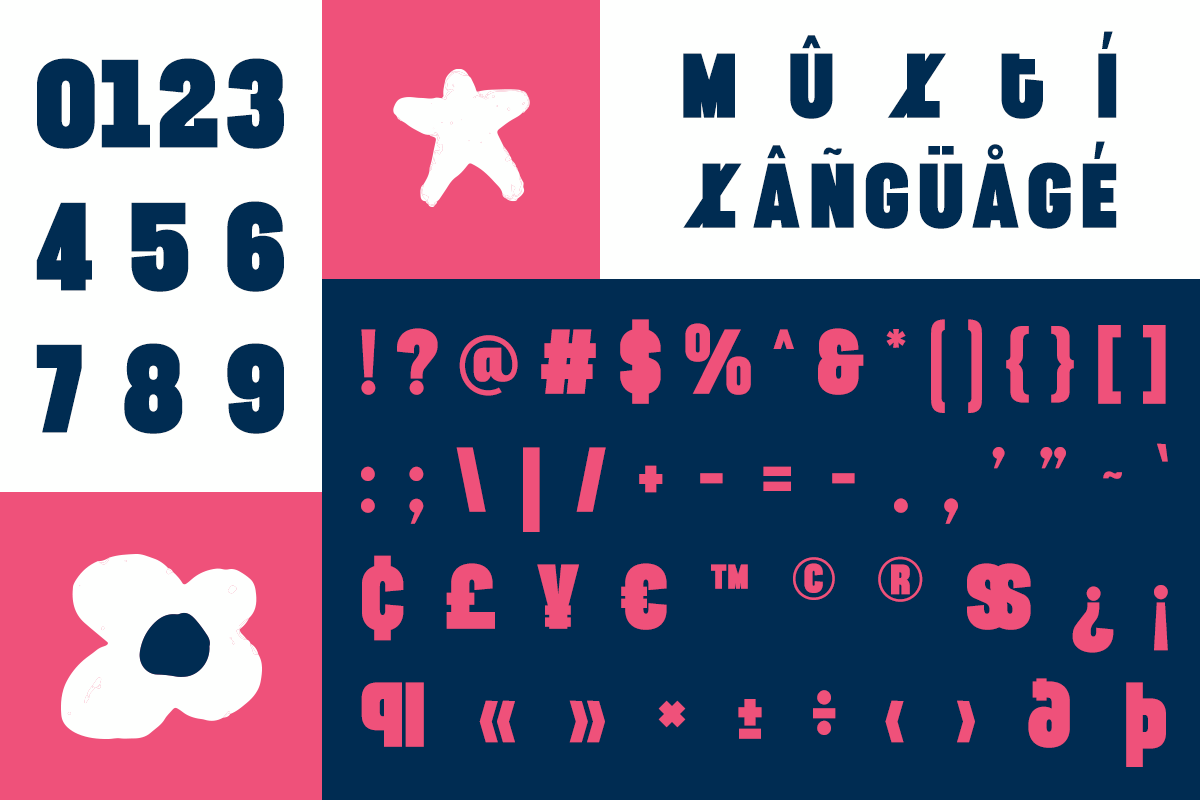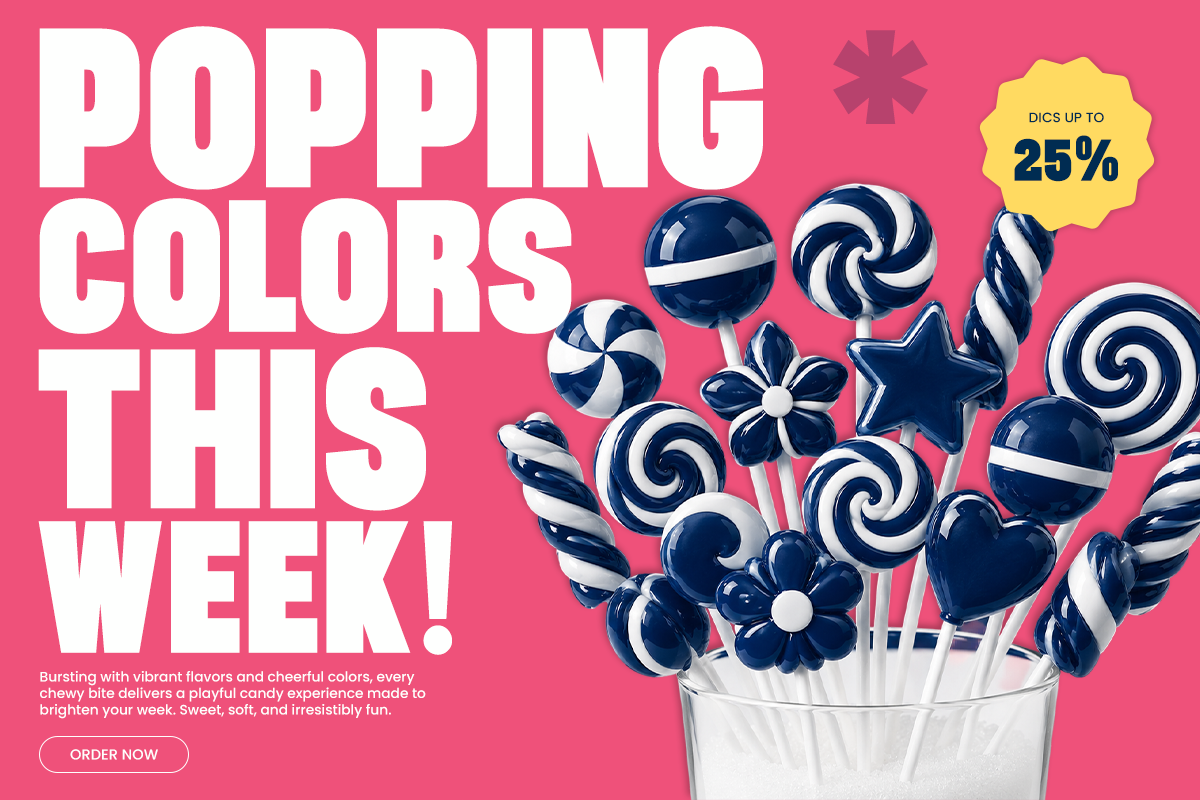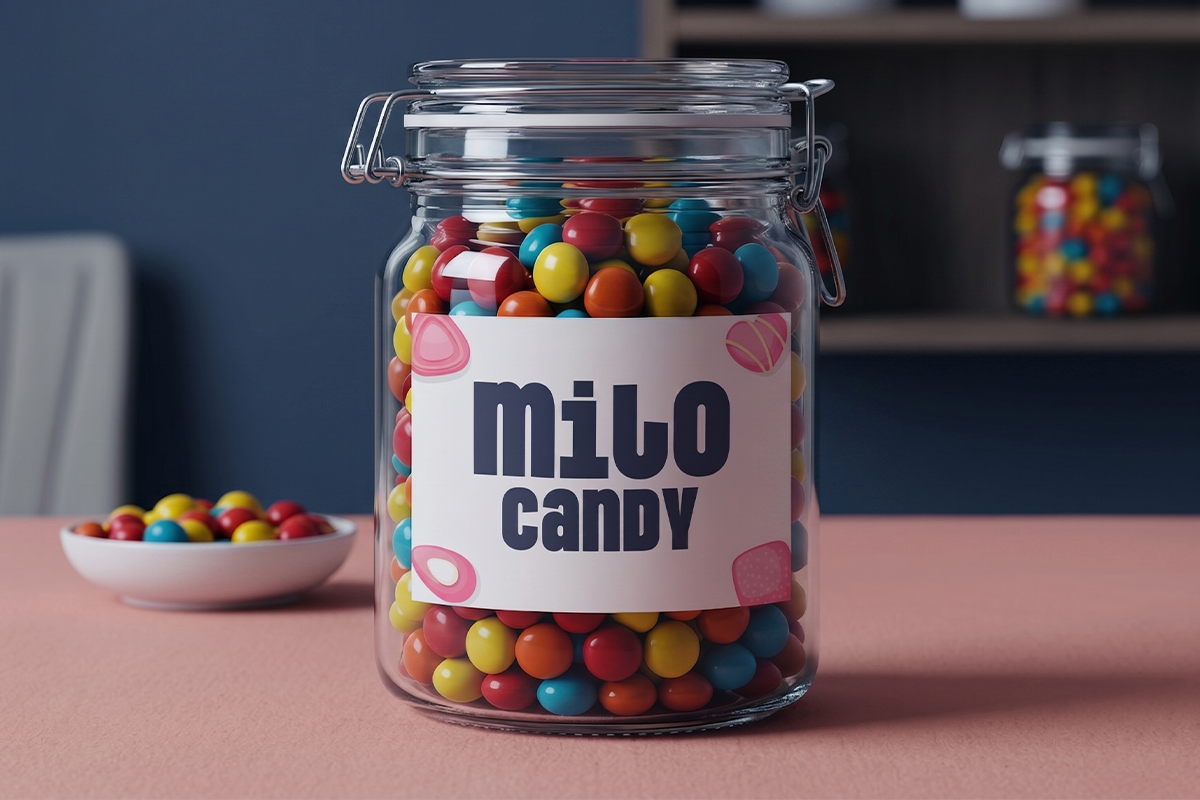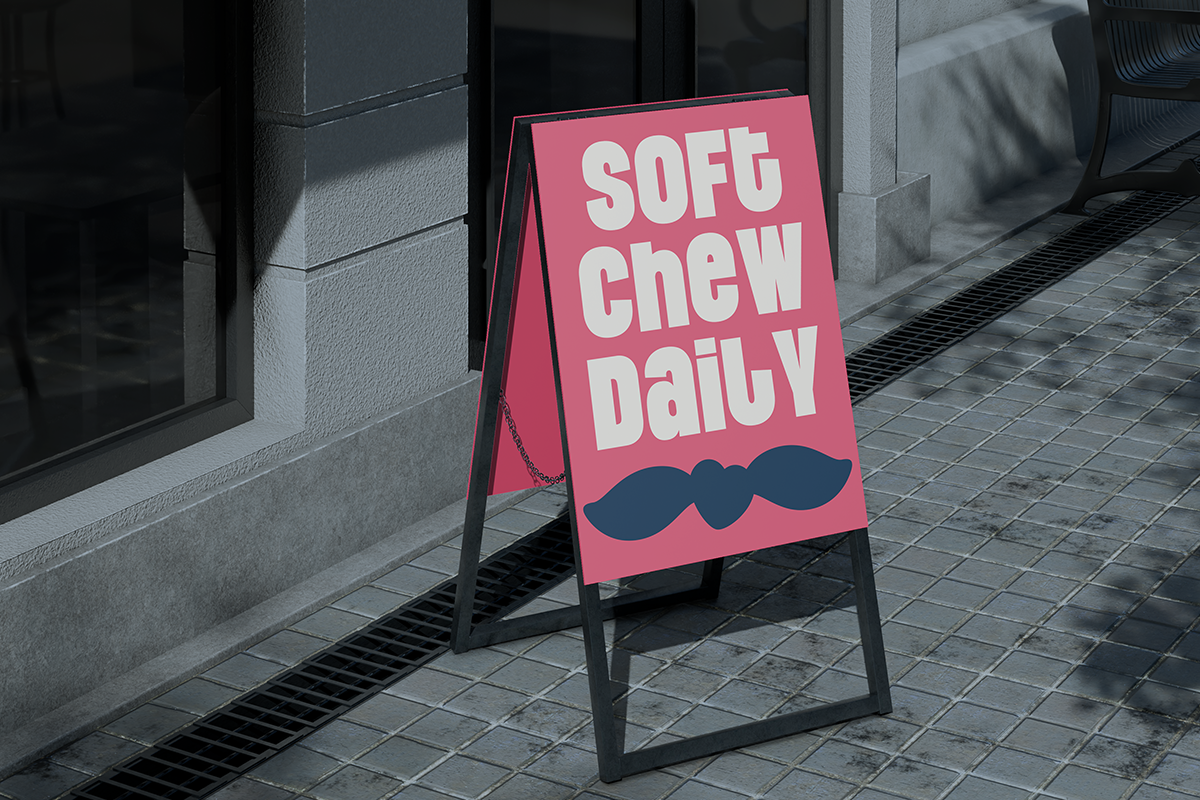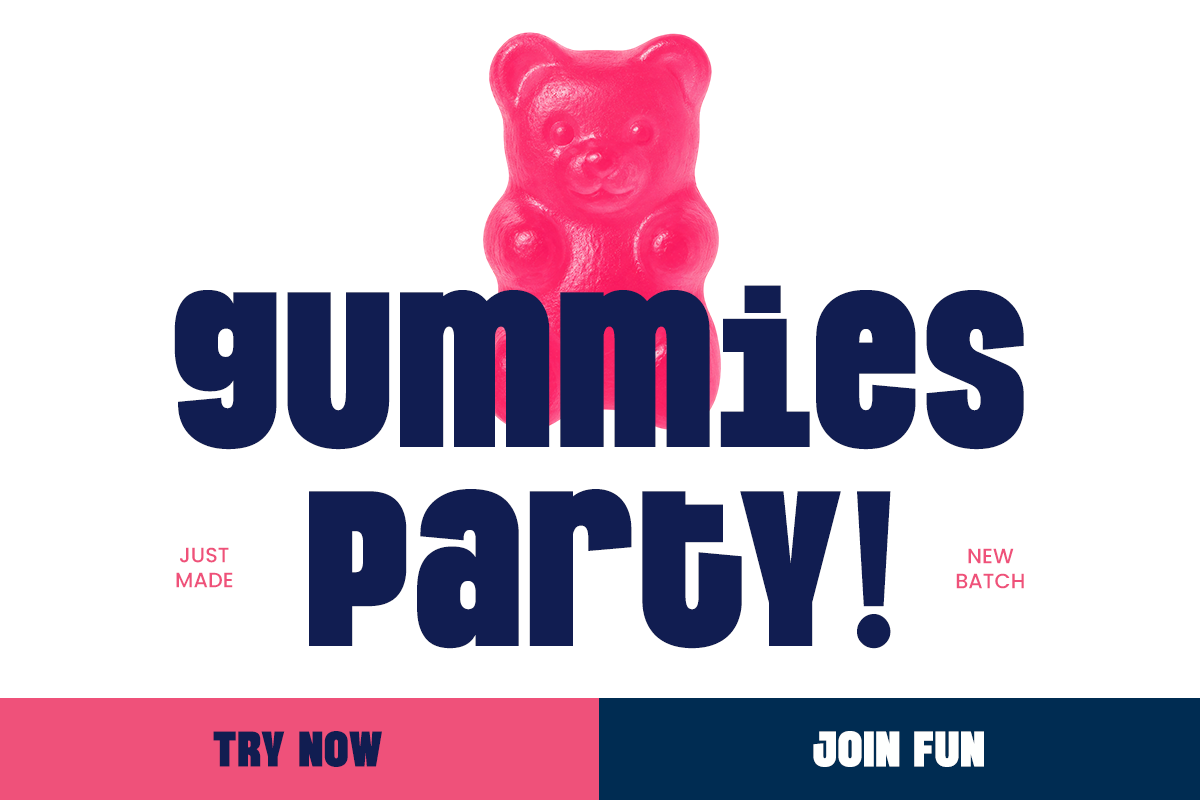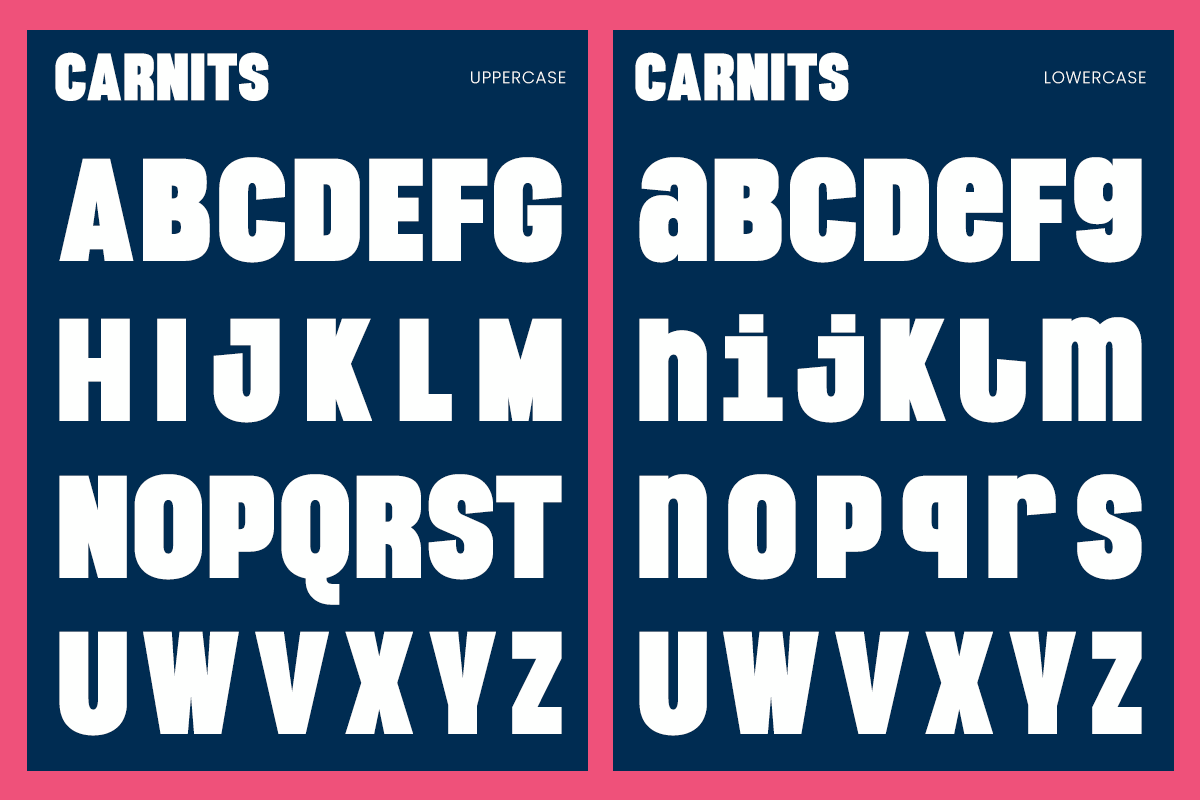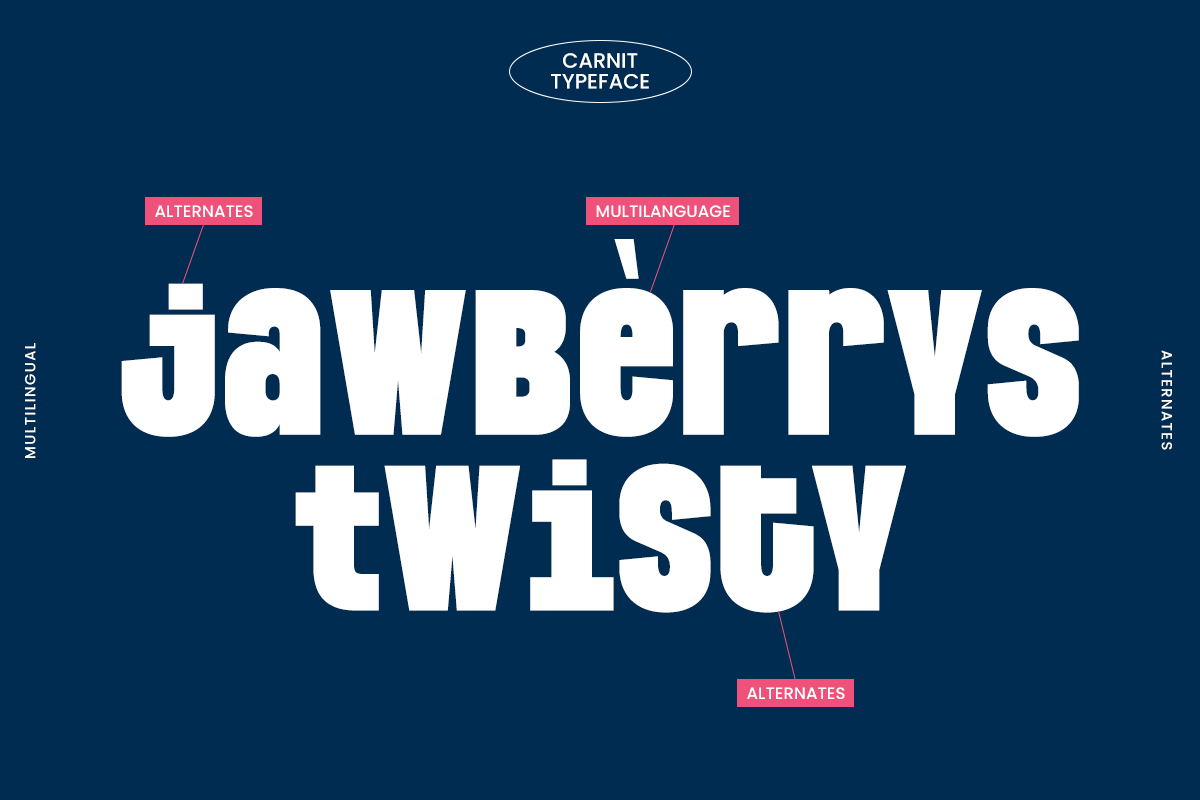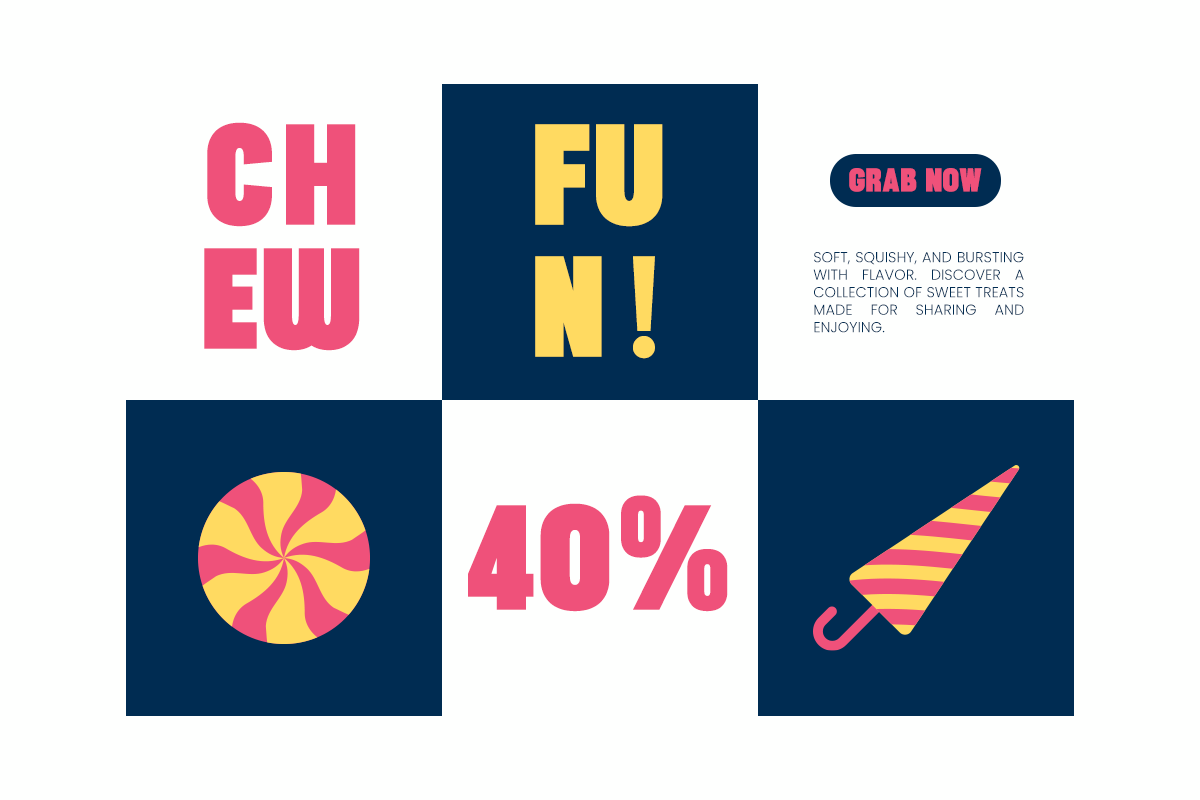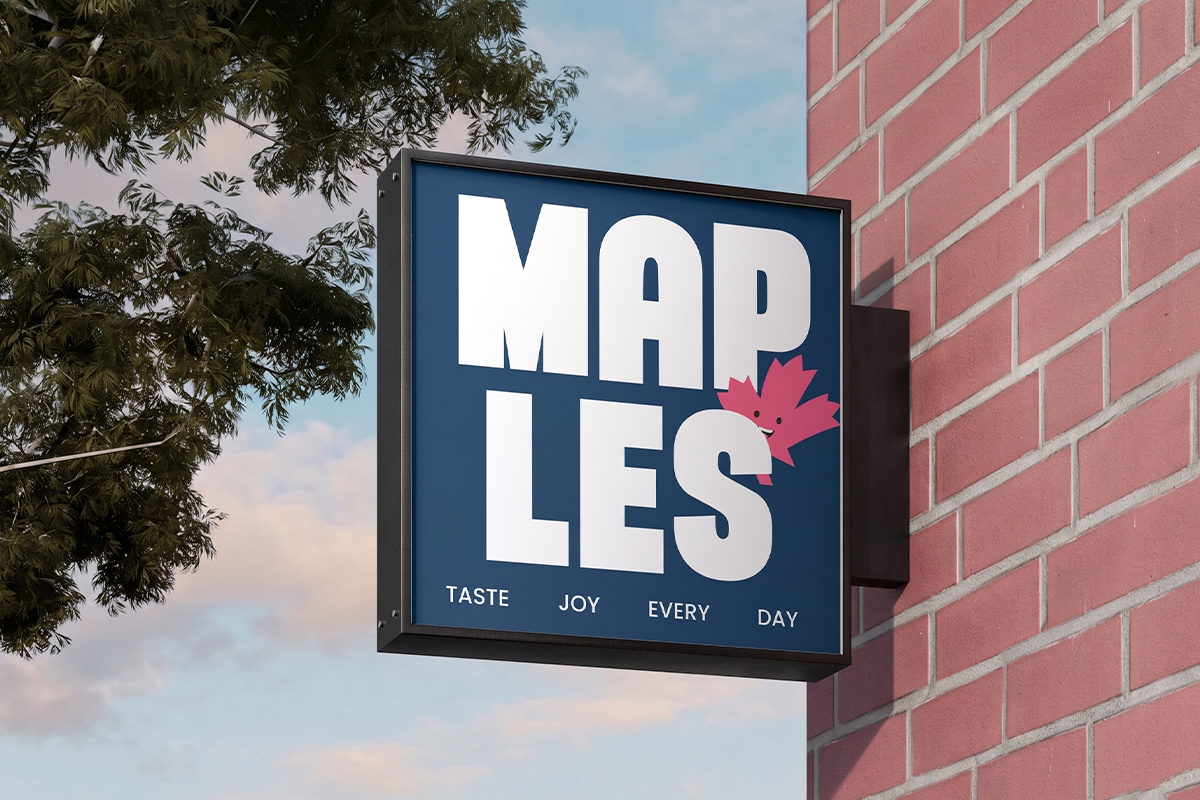
Carnit – Bold Playful Sans Serif
Carnit is a bold sans serif typeface designed to make every message impossible to ignore. With its chunky letterforms, playful personality, and strong geometric structure, Carnit brings instant energy to branding, packaging, posters, and modern advertising. The bold silhouette creates maximum visual impact while maintaining excellent readability across both print and digital media.
Perfect for candy brands, food packaging, children's products, social media graphics, logos, headlines, merchandise, and promotional campaigns, Carnit delivers a fun and confident aesthetic that captures attention in seconds. Featuring multilingual support and stylish alternates, it gives designers the flexibility to create unique and memorable typography with ease.
Whether you're building a cheerful identity, designing vibrant marketing materials, or creating eye-catching packaging, Carnit adds a fresh, friendly, and modern touch that stands out in every composition.
Regular and Italic
Stylistic Ligatures
Number, Symbol, and Punctuation
Multi Language Support